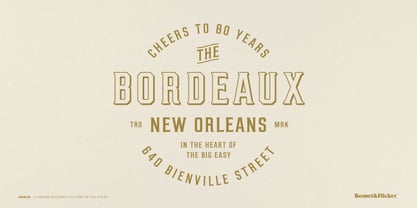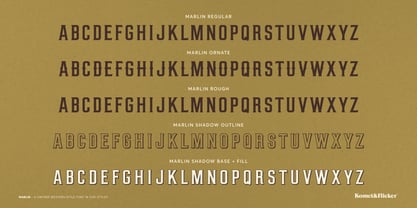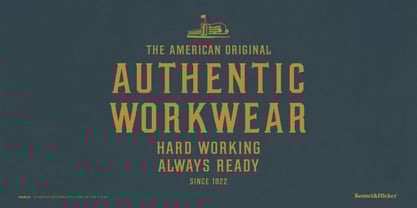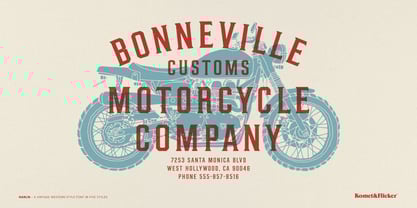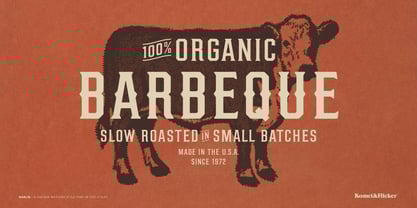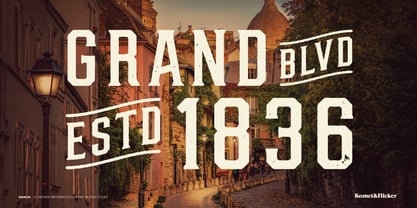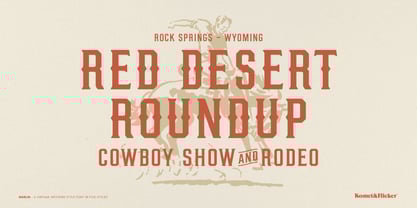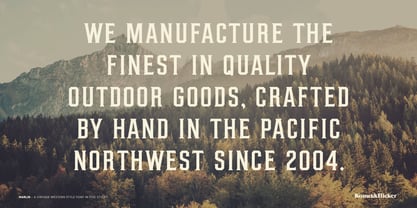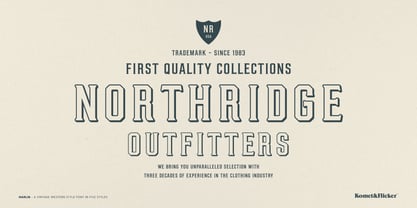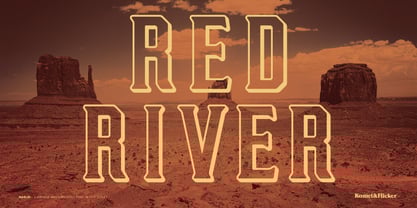
MARLIN
by Komet & Flicker
The MARLIN Font Family was designed by David Phillips and published by Komet & Flicker. MARLIN contains 6 styles and family package options.
MARLIN is a vintage-style, Western-inspired condensed display font that effortlessly blends rugged charm with timeless elegance. Inspired by the Wild West's frontier spirit and the intricate craftsmanship of old-time signage, MARLIN captures the essence of a bygone era, bringing a touch of nostalgia to modern designs. Perfect for businesses seeking a rustic, old-world aesthetic, MARLIN works great for a range of design projects, from logos and branding to posters, packaging, and merchandise.
Whether you're designing for a modern audience with a taste for nostalgia or aiming to capture the authentic spirit of the Wild West, MARLIN is the perfect font to bring your vision to life. Embrace the charm and character of vintage Americana typography with MARLIN – where history and artistry meet in perfect harmony.
MARLIN comes in five unique styles:
• MARLIN Regular
• MARLIN Ornate
• MARLIN Rough
• MARLIN Shadow Outline
• MARLIN Shadow Base + Fill
This font’s lowercase letter set includes 22 alternate letter styles allowing you to mix and match upper and lowercase characters for a variety of looks. Also included is a custom pre-made set of 23 common connector words such as AND, OF and THE.